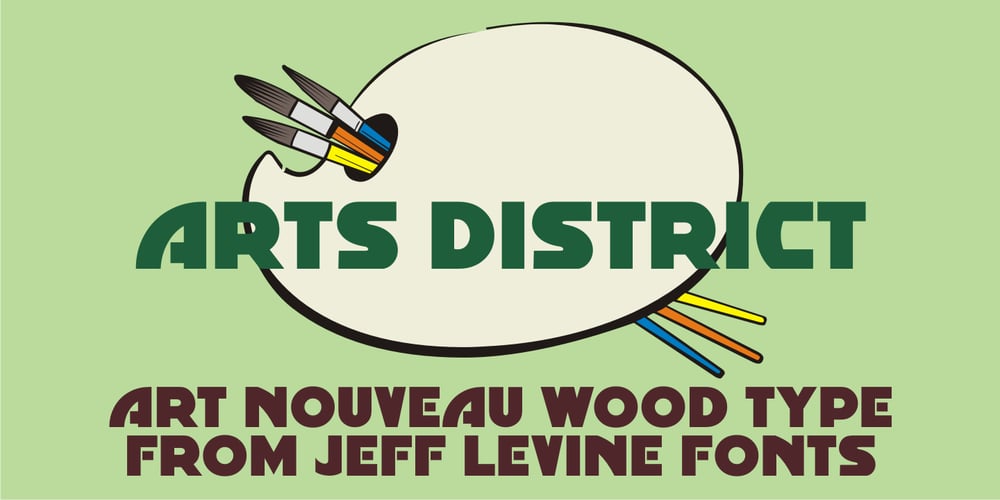
Arts District JNL
Arts District JNL font
Arts District JNL Font Family was designed by Jeff Levine and published by Jeff Levine. Arts District JNL contains 1 styles and family package options. Although the model for Arts District JNL was a set of wood type, the design influence is clearly from the Art Nouveau era. Note the combination of unusual flat and curved sides on many letters. Decorative, yet legible; Arts District JNL works well with any period piece or as a pleasant alternative to traditional headline fonts.